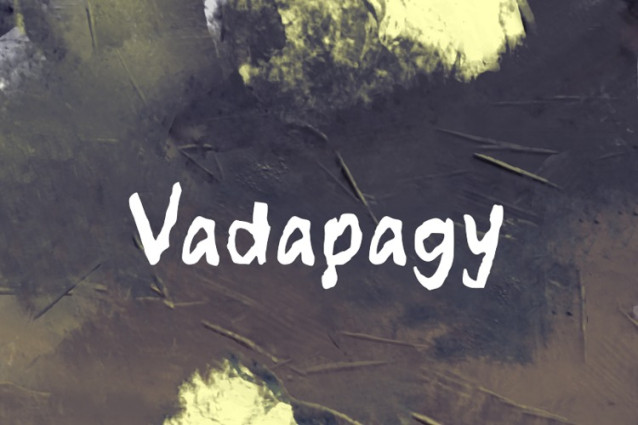
Vadapagy Font
Vadapagy Font, it would be a perfect choice to design posters, affiches, logos, t-shirt and magazine prints, eye-pleasing typographic designs and more.